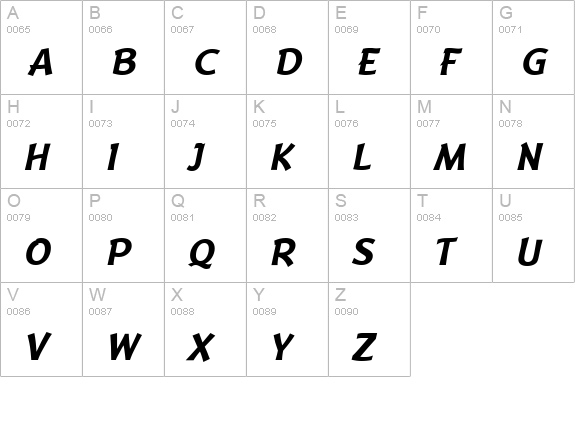
BadgerBoldItalic Font Details
BadgerBoldItalic is a striking and versatile typeface that exudes confidence and sophistication. Its bold and italicized design adds a touch of flair to any project, making it perfect for headlines, titles, and branding materials. The strong, angular lines of BadgerBoldItalic demand attention and stand out in any setting. Best of all, BadgerBoldItalic is available for free download at FontsMarket.com. This means that you can elevate your designs with this unique font without any cost. Whether you're working on a professional project or a personal creative endeavor, BadgerBoldItalic is sure to make a statement and leave a lasting impression. Download it today and see the impact it can have on your work.